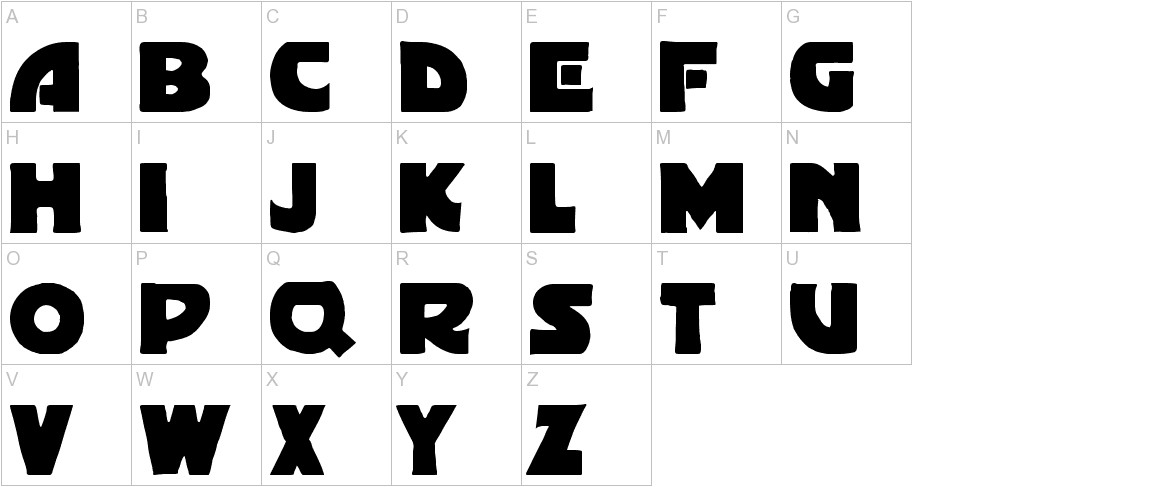
Gordoni Bold
Gordoni is a knock-out speed letter, based on an old
sketch from William Hugh Gordon. I created some basic punctuation; however, no numbers or extra glyphs are included.